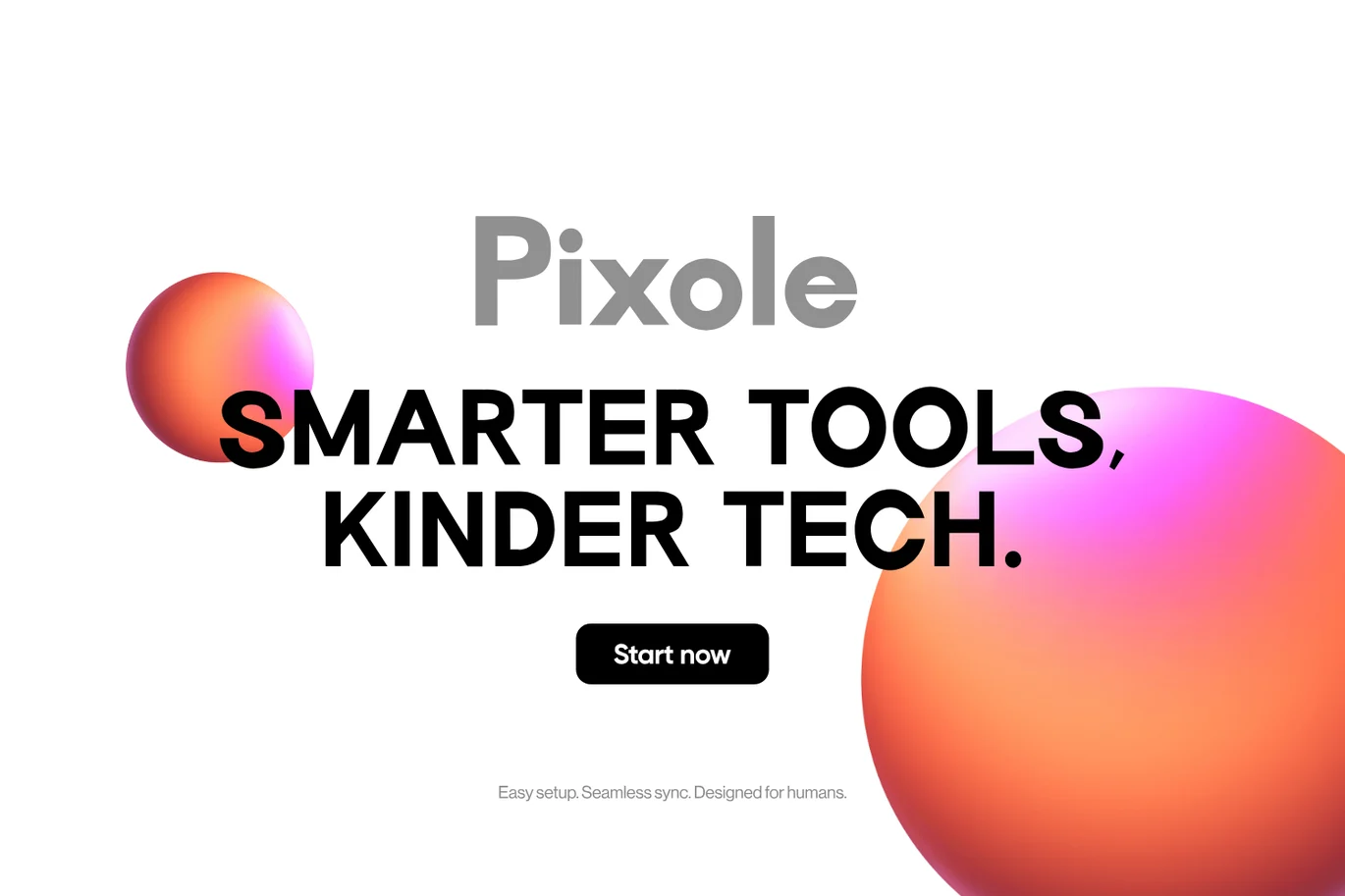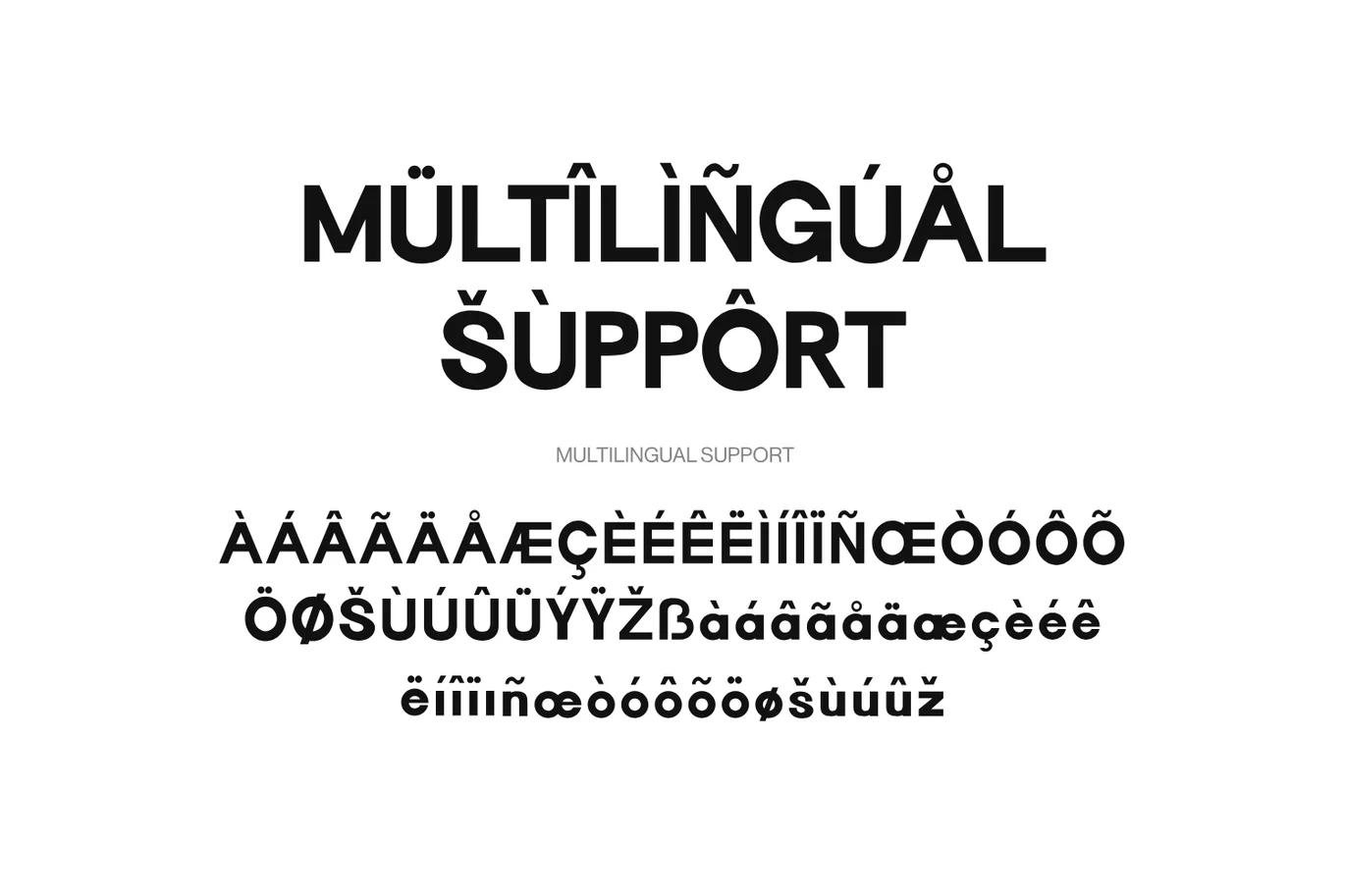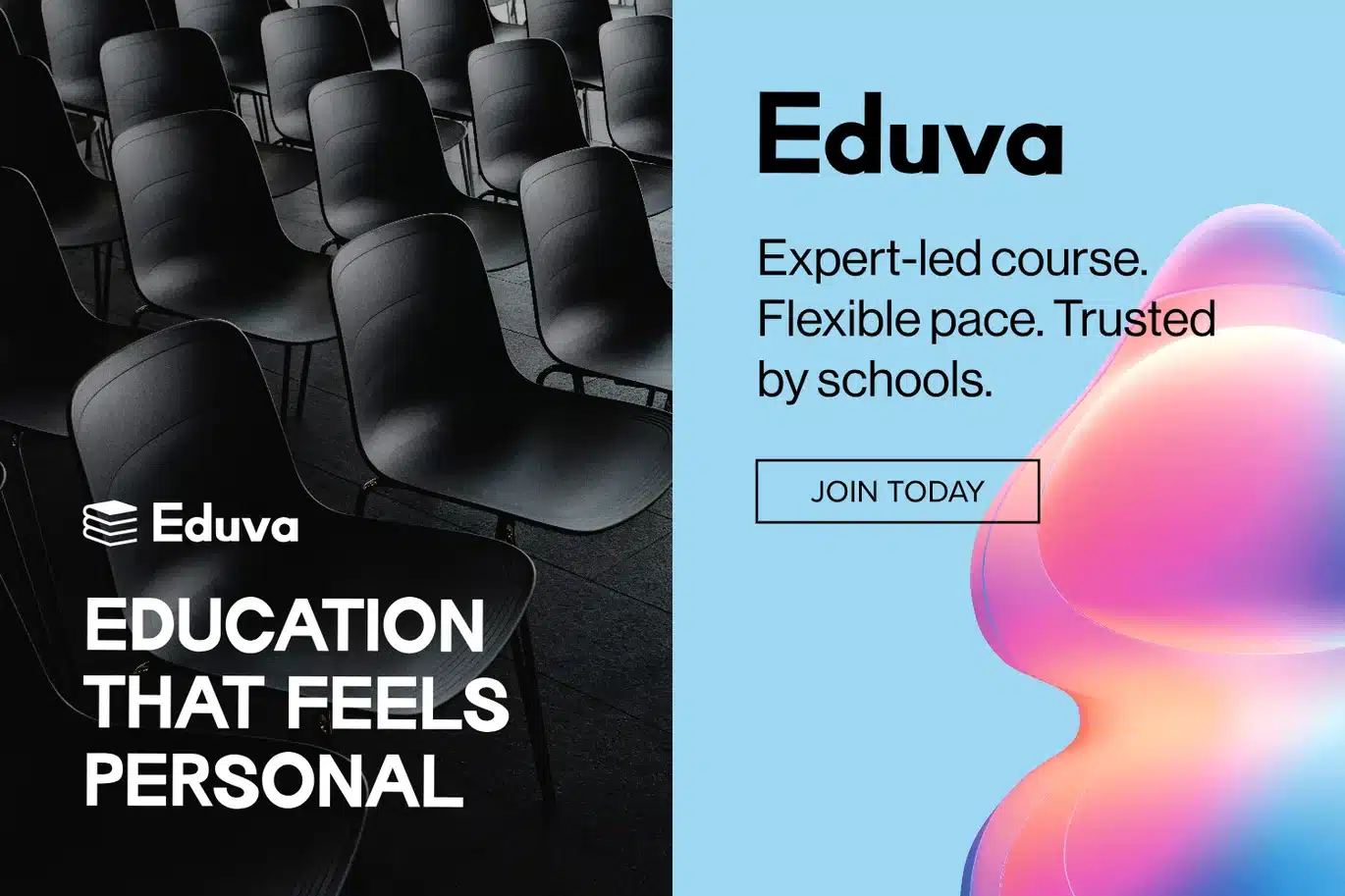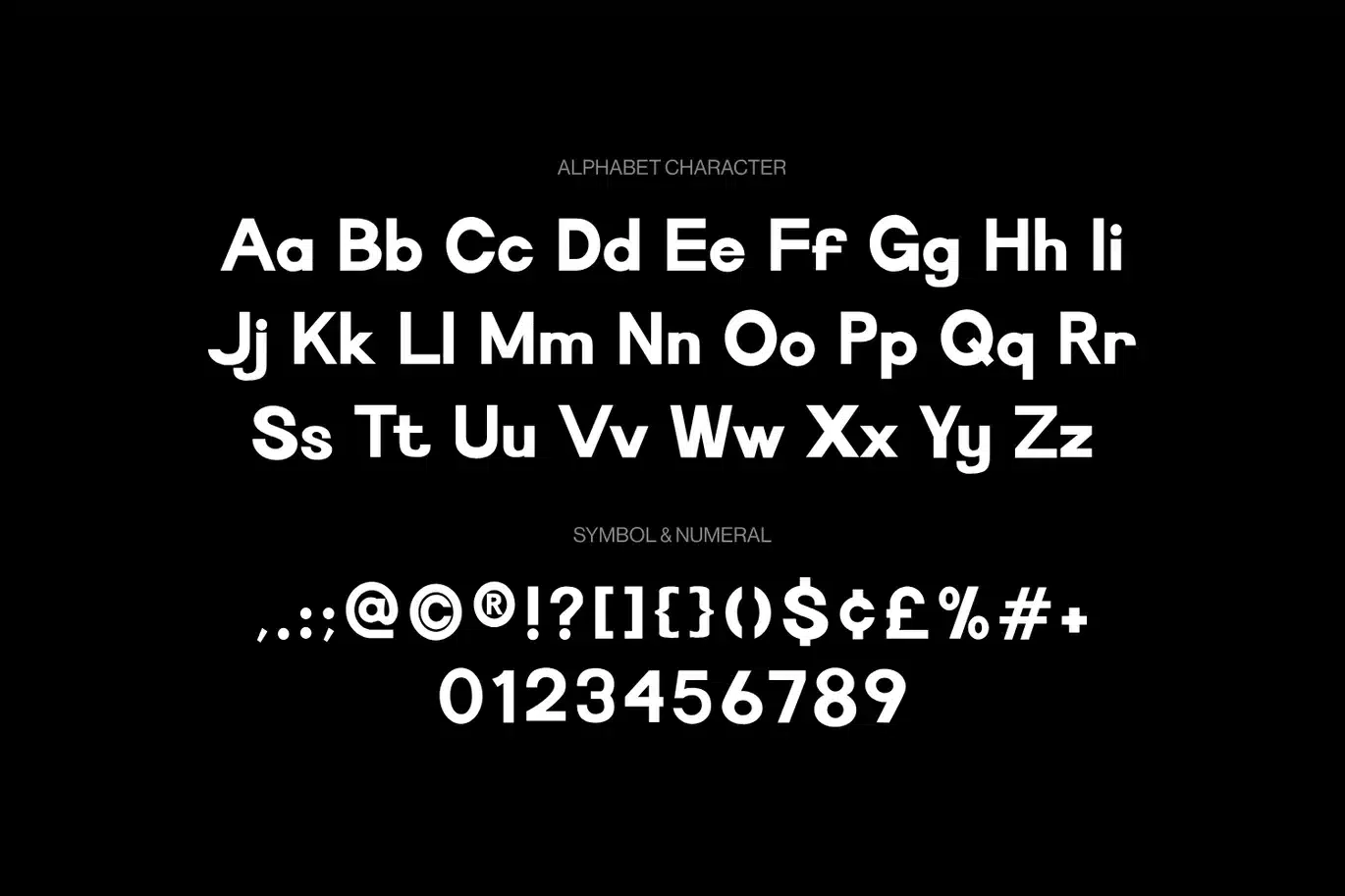
Moda – Logo Font
Moda font is a modern and elegant display typeface designed to bring a clean and minimal aesthetic to logo and branding projects. With its smooth geometric forms and balanced proportions, this font reflects the timeless influence of helvetica, montserrat, and futura while introducing a fresh and contemporary character. It is perfectly suited for fashion branding, corporate identities, and modern design systems that require clarity, simplicity, and strong visual appeal.
With its versatile and refined style, Moda font adapts seamlessly across a wide range of creative applications, from professional corporate layouts to playful kids concepts. The clean and minimal structure ensures excellent readability while maintaining a bold display presence, making it ideal for logos, branding, and editorial compositions. Moda stands among modern fonts that combine elegance, functionality, and minimal design for impactful visual communication.